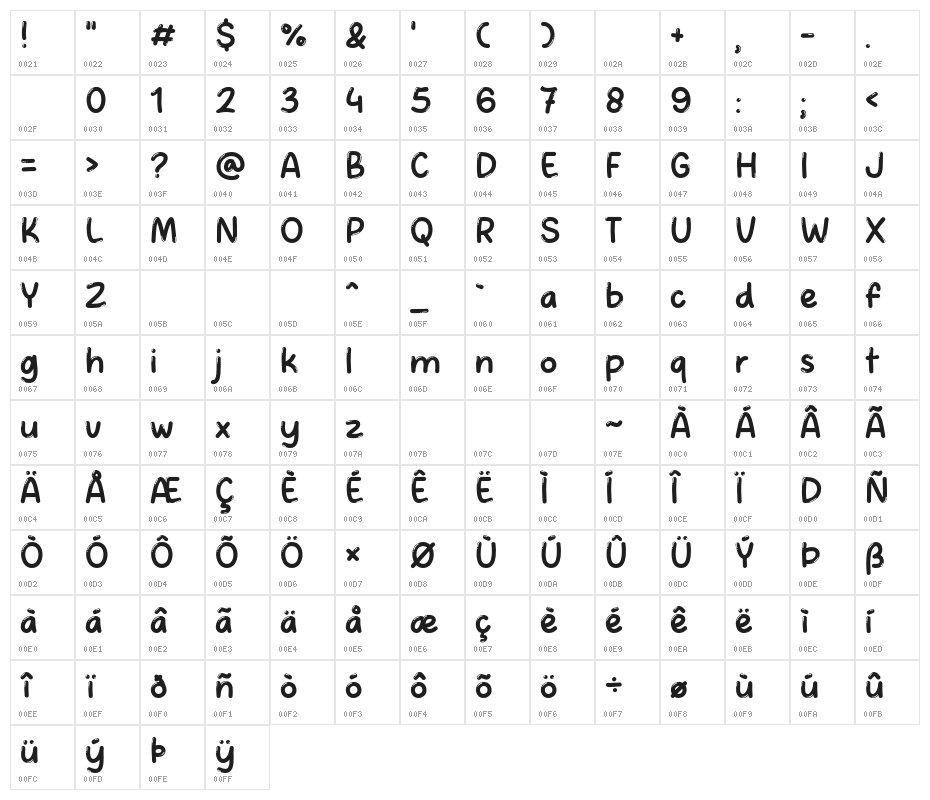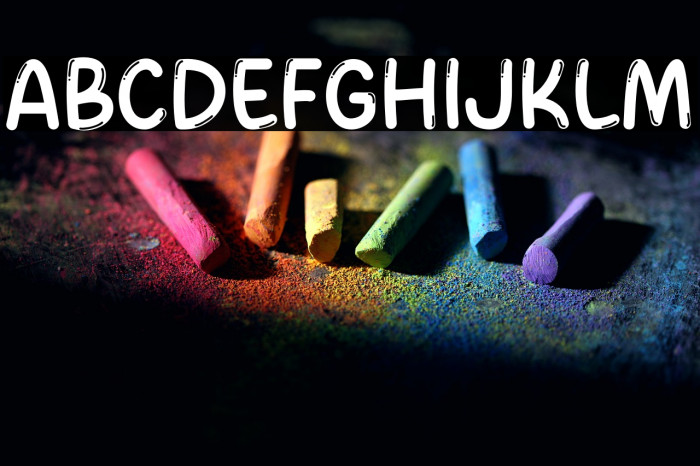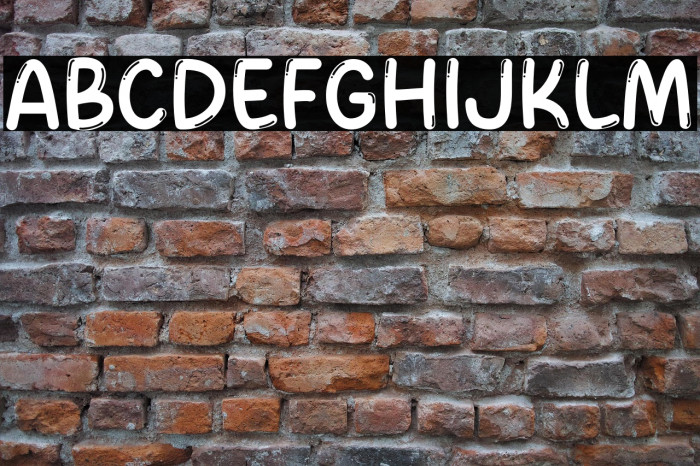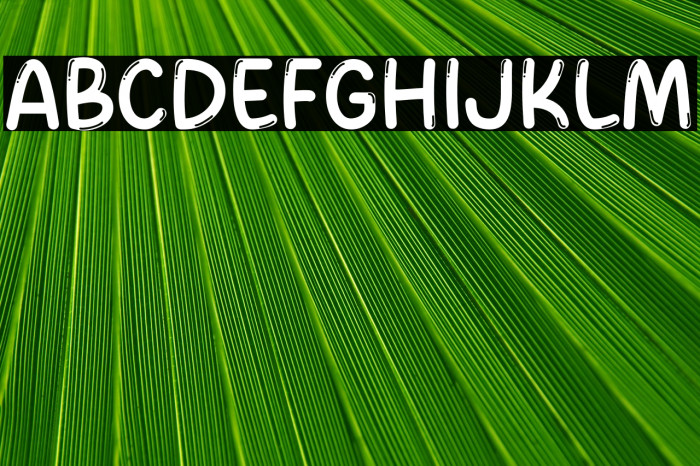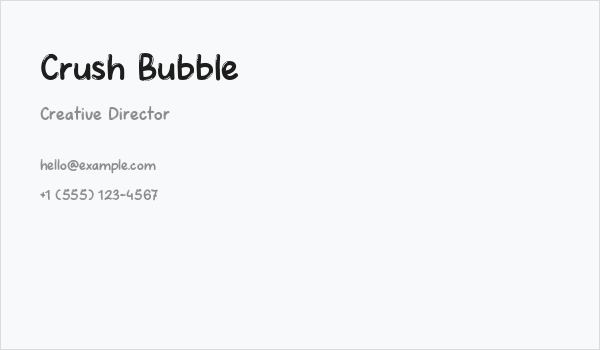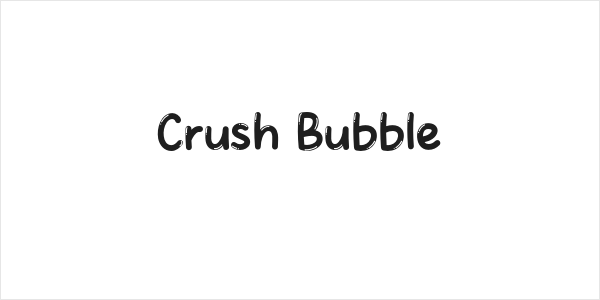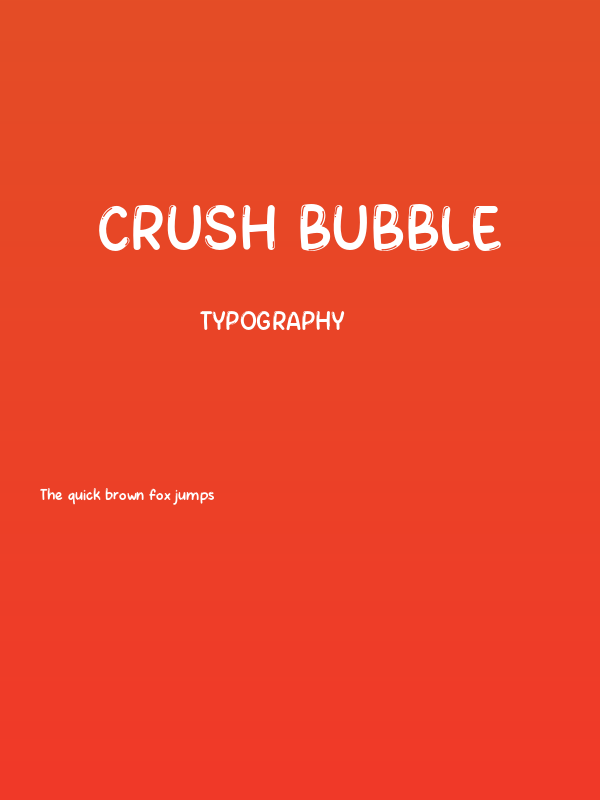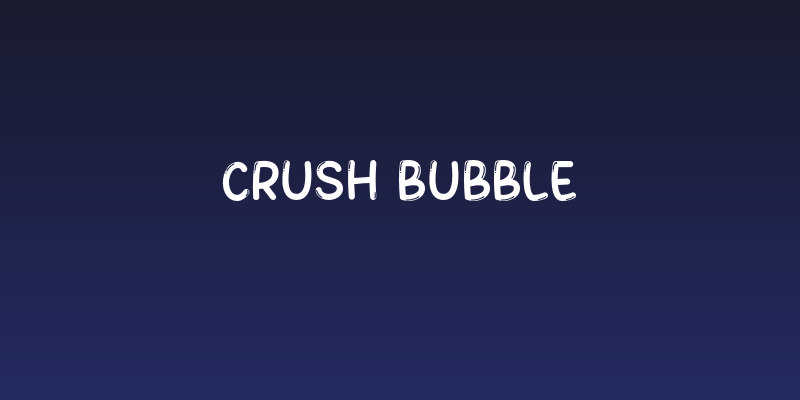
Crush Bubble Font
Crush Bubble Description
This playful and bubbly font features rounded, thick strokes that give it a friendly and approachable appearance. The letters are bold and slightly irregular, adding a whimsical touch to the overall design. The font maintains a consistent weight throughout, with a smooth, flowing style that enhances its casual and fun character. The uppercase and lowercase letters are well-balanced, and the numerals are clear and easy to read. Special characters are included, maintaining the same playful aesthetic. This font is perfect for projects that require a lighthearted and cheerful vibe.
| Proposed Projects | Ideal for children's books, playful branding, party invitations, and casual social media graphics. |